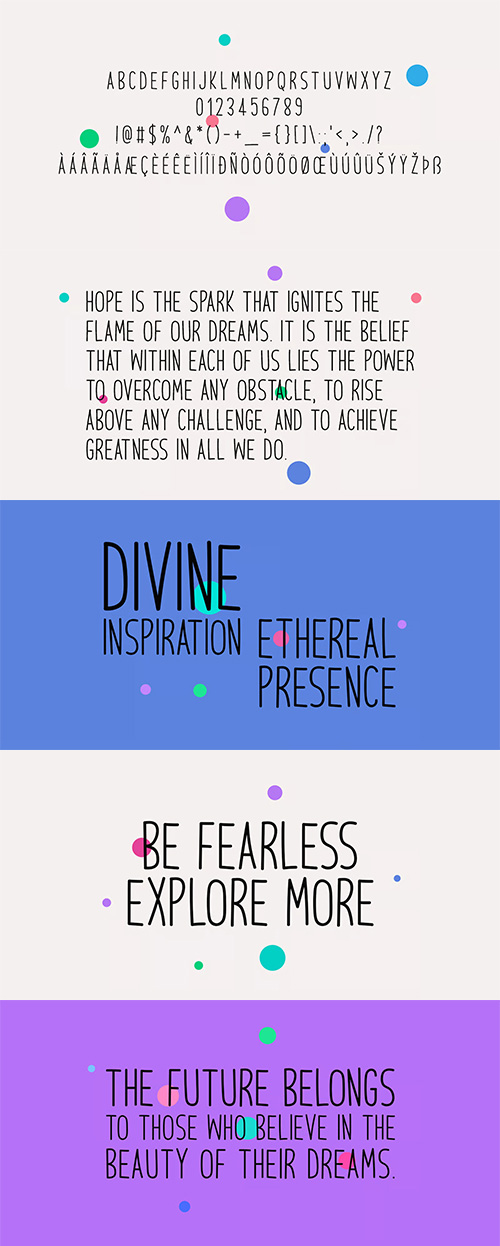
Another Wonder - A Simple & Sweet Handwritten
- Another Wonder is a sweet and simple handwritten font. This font is ideal for stationery, logos, t-shirts, papers, print designs, website headers, picture frames, flyers, album covers, posters, image sliders, and many other things.